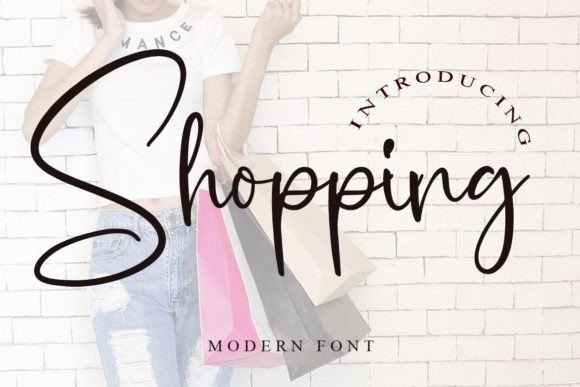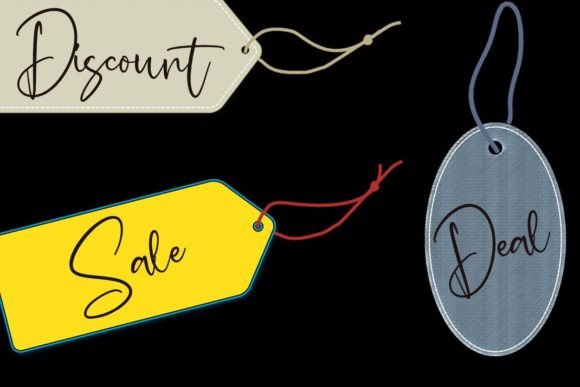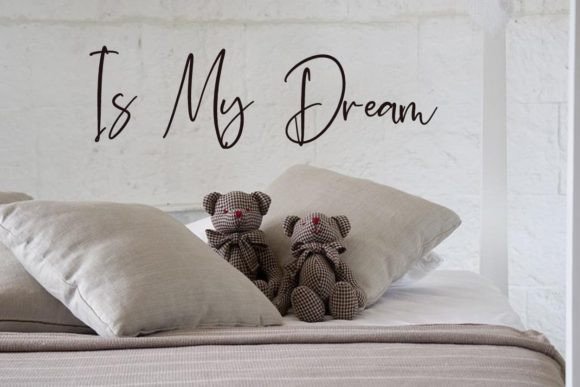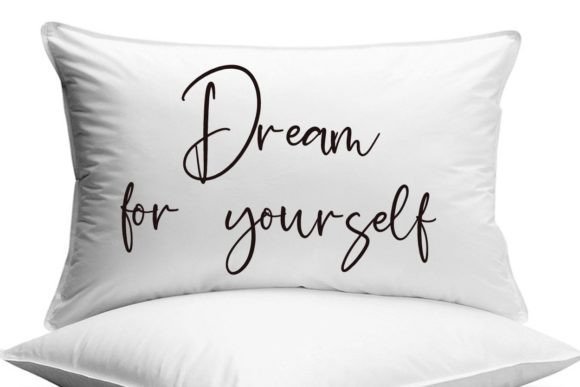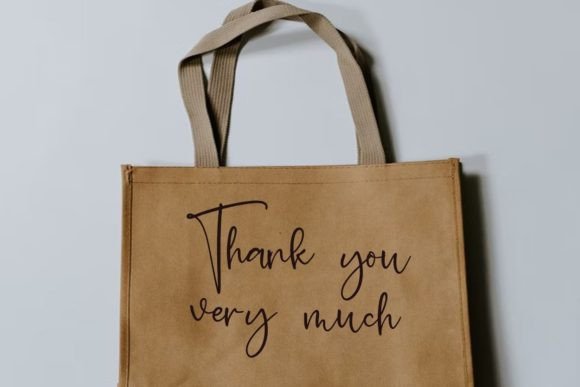
Shopping Font
About Shopping Font
“Shopping” is introduced as a fresh and beautiful font, well-suited for various design purposes. This font is positioned as a versatile tool for creating YouTube banners, cover logo mockups, wedding invitations, ID cards, flyers, and crafts. The claim is that utilizing this font can contribute to the progress and development of your business, while its simplicity and uniqueness make it stand out.
The term “fresh and beautiful” suggests that the font has a contemporary and visually appealing quality. Such characteristics can be especially attractive for designs intended for YouTube banners, logos, and invitations, where a visually engaging and modern look is often desired.
The versatility of “Shopping” is emphasized by its suitability for a range of design purposes. YouTube banners, cover logo mockups, wedding invitations, and more are mentioned, indicating that the font is adaptable to different contexts and design needs.
The claim that using this font will contribute to the progress and development of a business suggests that “Shopping” is not just a design element but is seen as a tool that can enhance the overall branding and visual identity of a business.
Describing the font as simple and unique highlights its potential for clarity and individuality. Fonts with simplicity often ensure readability, while uniqueness contributes to the distinctiveness of the design. These qualities are especially important in crafting logos, banners, and other visual elements where brand identity is crucial.
In conclusion, “Shopping” is presented as a font that brings freshness and beauty to designs, suitable for a variety of purposes. Its simplicity and uniqueness are highlighted as features that can contribute to the progress and development of businesses, making it a valuable asset for designers seeking a versatile and impactful font for their projects.